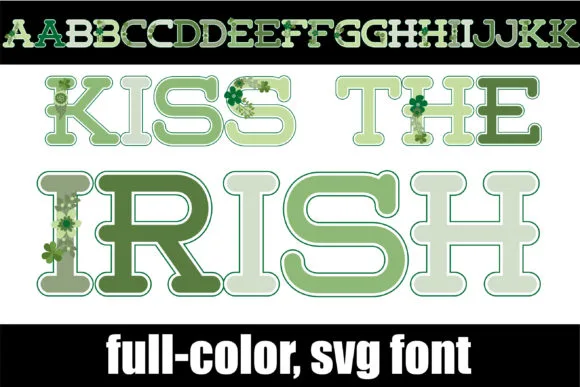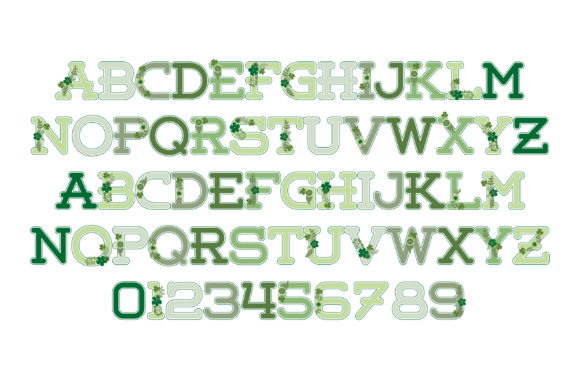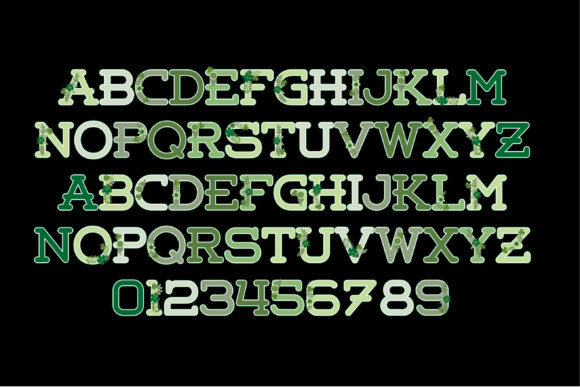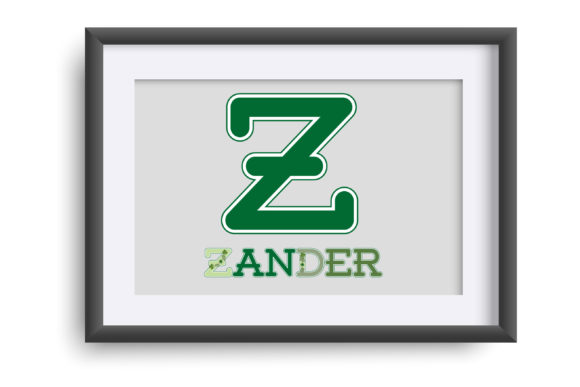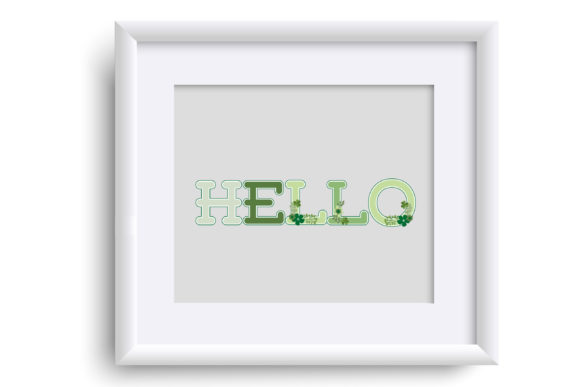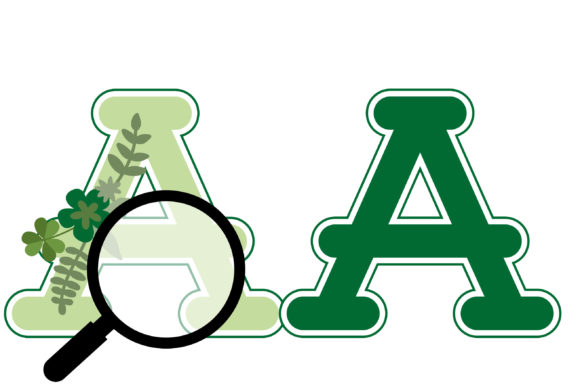
Kiss the Irish Font
About Kiss the Irish Font
The Kiss the Irish font is a unique font that features green letters with green and clover floral designs. It is a full-color (SVG) font, which means it contains vibrant colors and intricate details.
The Kiss the Irish font is a great choice for adding a touch of green and a festive flair to your designs, especially for St. Patrick’s Day or Irish-themed projects.